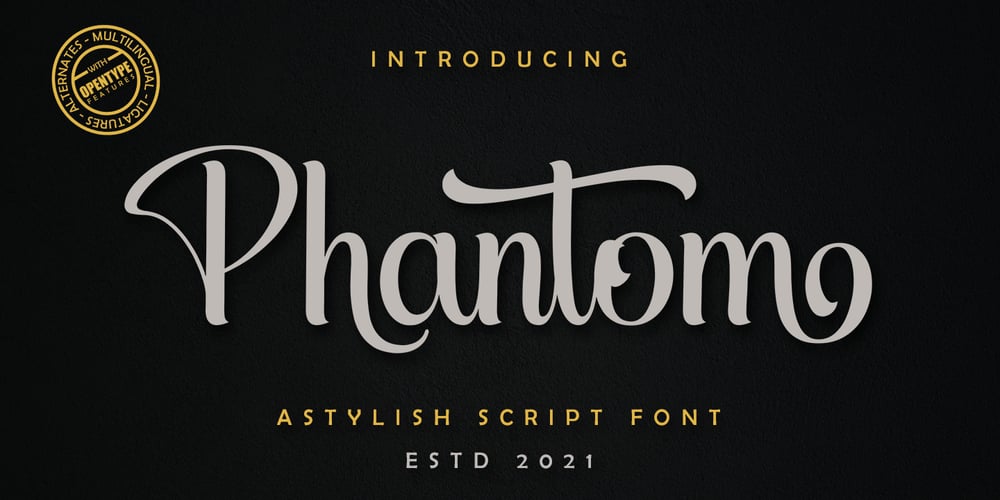
Phantom Script
Phantom Script font
Phantom Script Font Family was designed by Muhajir and published by Skinny Type. Phantom Script contains 1 styles and family package options. A Stylish Script FontPhantom Script is a retro bold script font. It is PUA encoded which means you can access all of the glyphs and swashes with ease! It features a varying baseline, vintage and retro taste, gorgeous glyphs and stunning alternates. Fall in love with its incredibly versatile style and use it to create spectacular designs!FEATURES- TTF/OTF- Stylistic Alternates- Ligatures- Uppercase and Lowercase letters- Numbering and Punctuations- Multilingual Support- Works on PC or Mac- Simple Installation- Support Adobe Illustrator, Adobe Photoshop, Adobe InDesign, also works on Microsoft Word